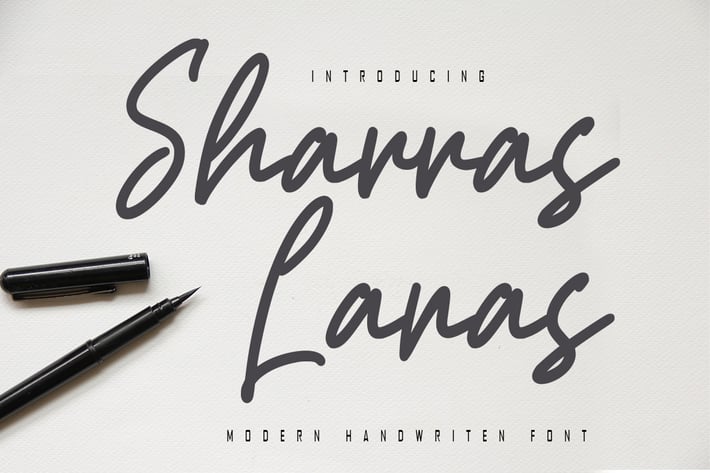
Sharras Lanas - Modern Handwritten Font
Sharras Lanas is a beautiful light handwritten font with a unique feel and a stunning impact. It will add a luxury spark to any design project that you wish to create!
+ Basic Latin Language Support (AÀÁÂÃÄÅCÇDÐEÈÉÊËIÌÍÎÏÑOØÒÓÔÕÖUÙÜÚÛWYÝŸÆß )